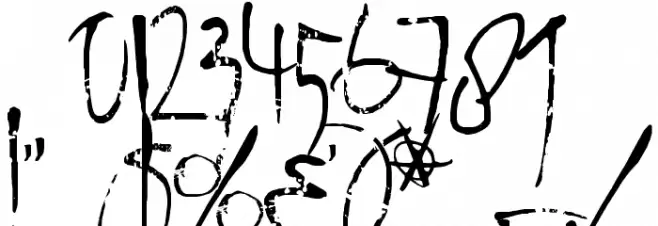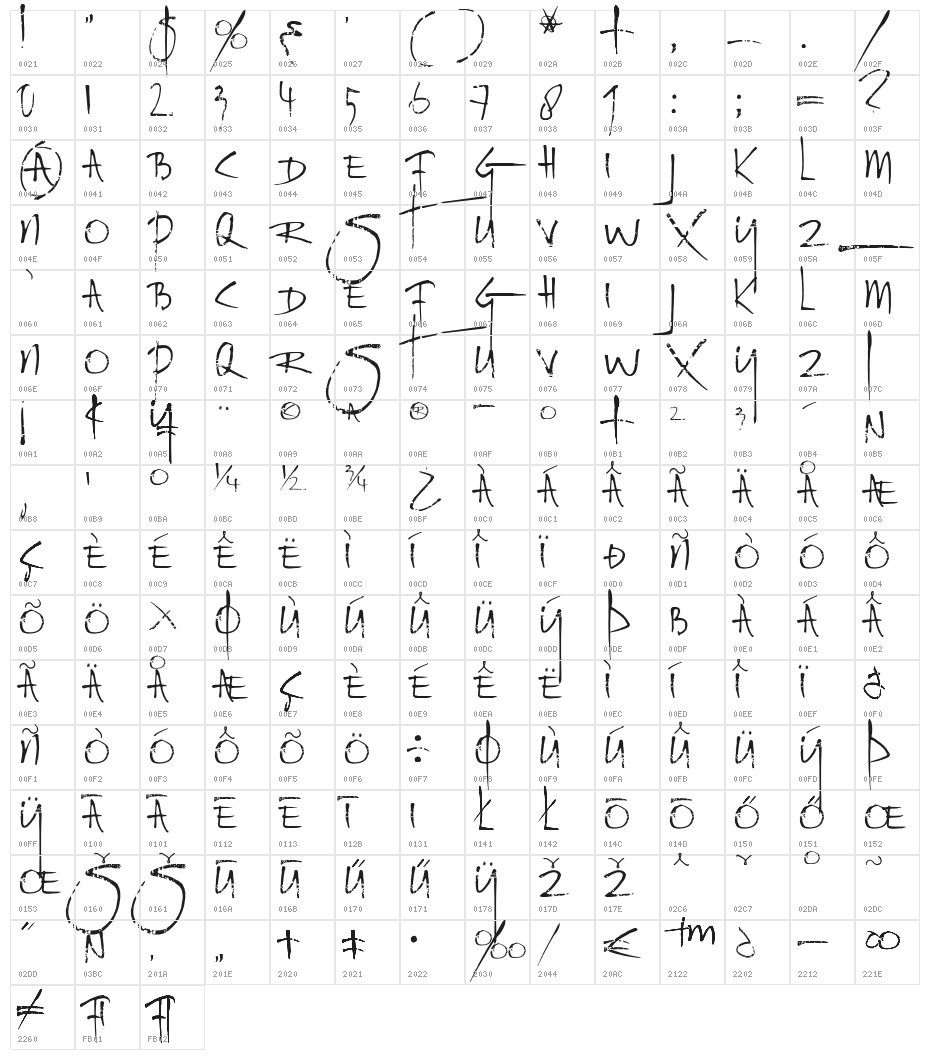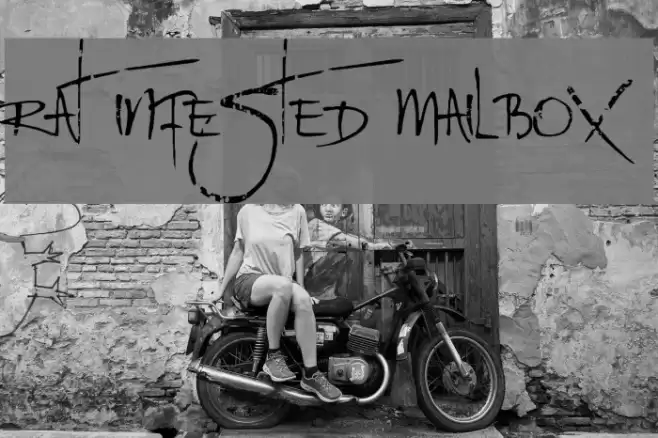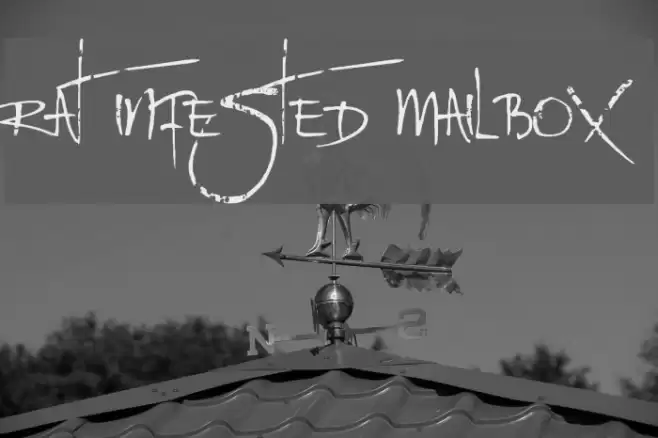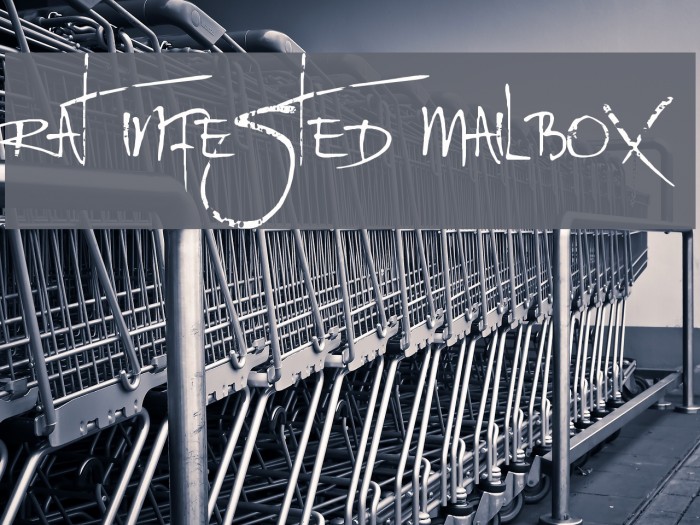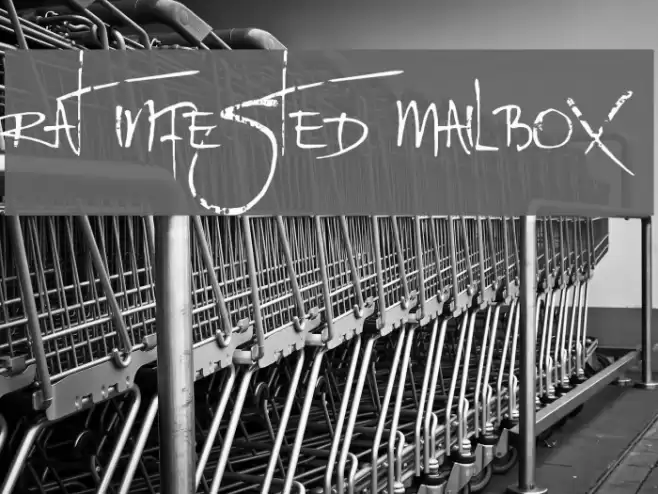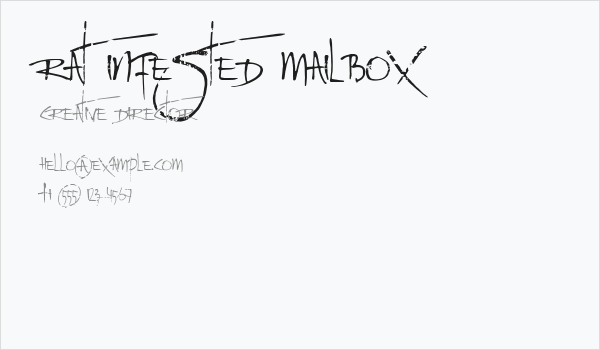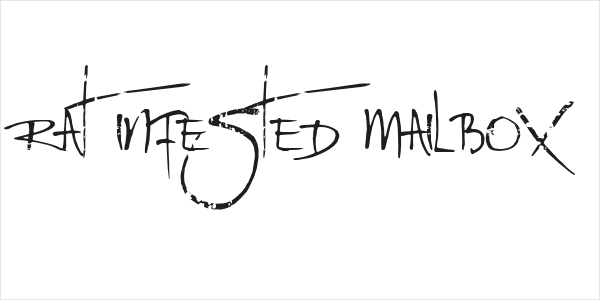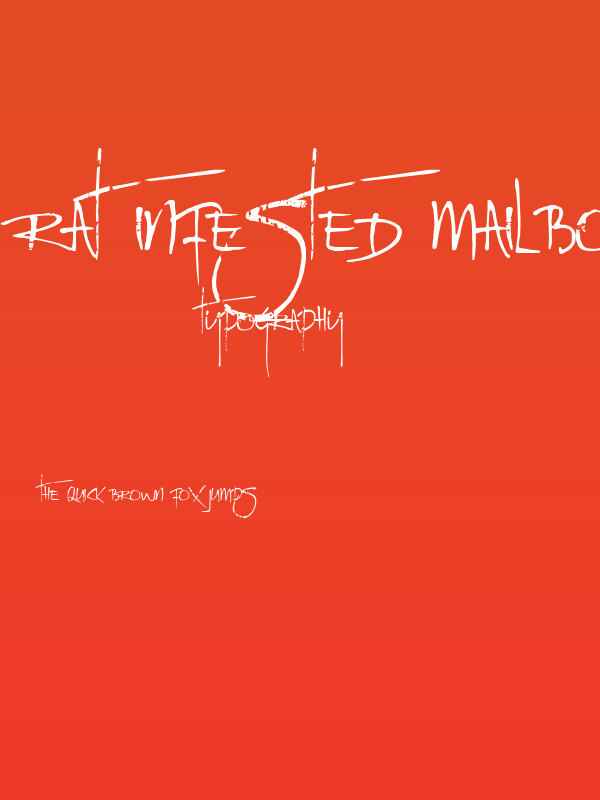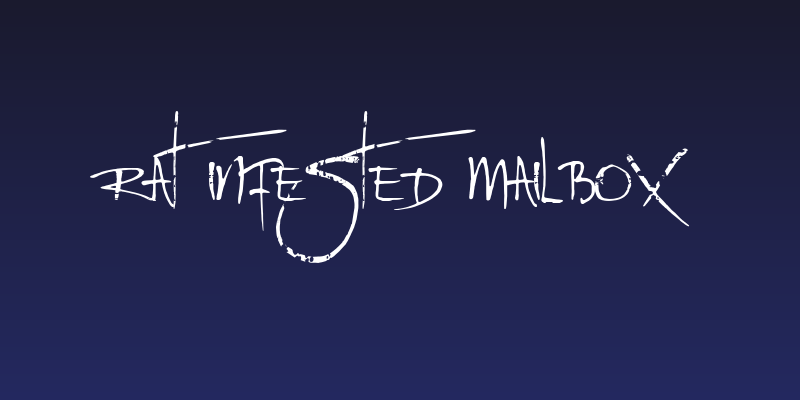
Rat Infested Mailbox Font
Rat Infested Mailbox Description
This font exudes a chaotic and distressed aesthetic, characterized by its erratic strokes and uneven baseline. The letters appear as if they have been hastily scribbled, with varying thickness and a rough texture that suggests a sense of urgency or disorder. The uppercase and lowercase letters maintain a consistent style, with elongated verticals and sharp angles. Numbers and special characters follow the same distressed theme, adding to the overall disarray. This font is ideal for projects that aim to convey a sense of rebellion, edginess, or artistic flair.
| Use Case | Logos, Posters, Artistic projects |
| Proposed Projects | Album covers, graffiti art, edgy posters, rebellious branding, or any project requiring a raw, artistic touch. |